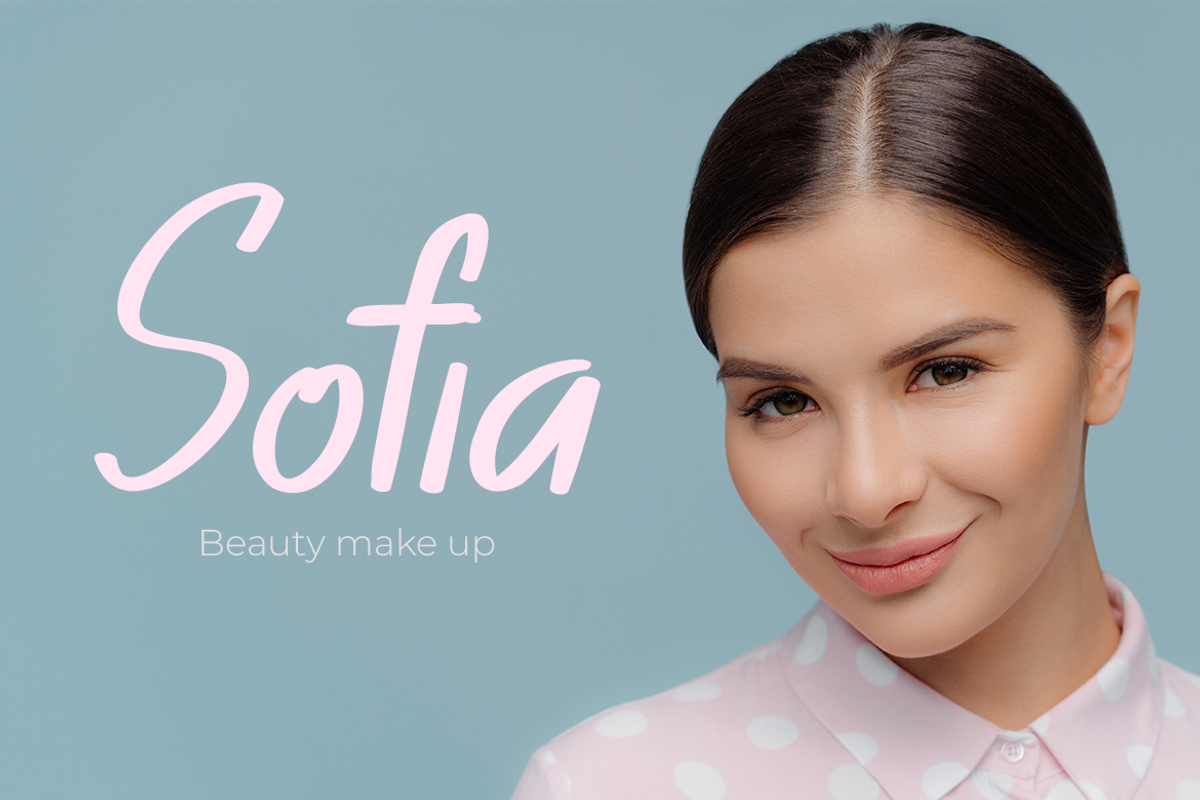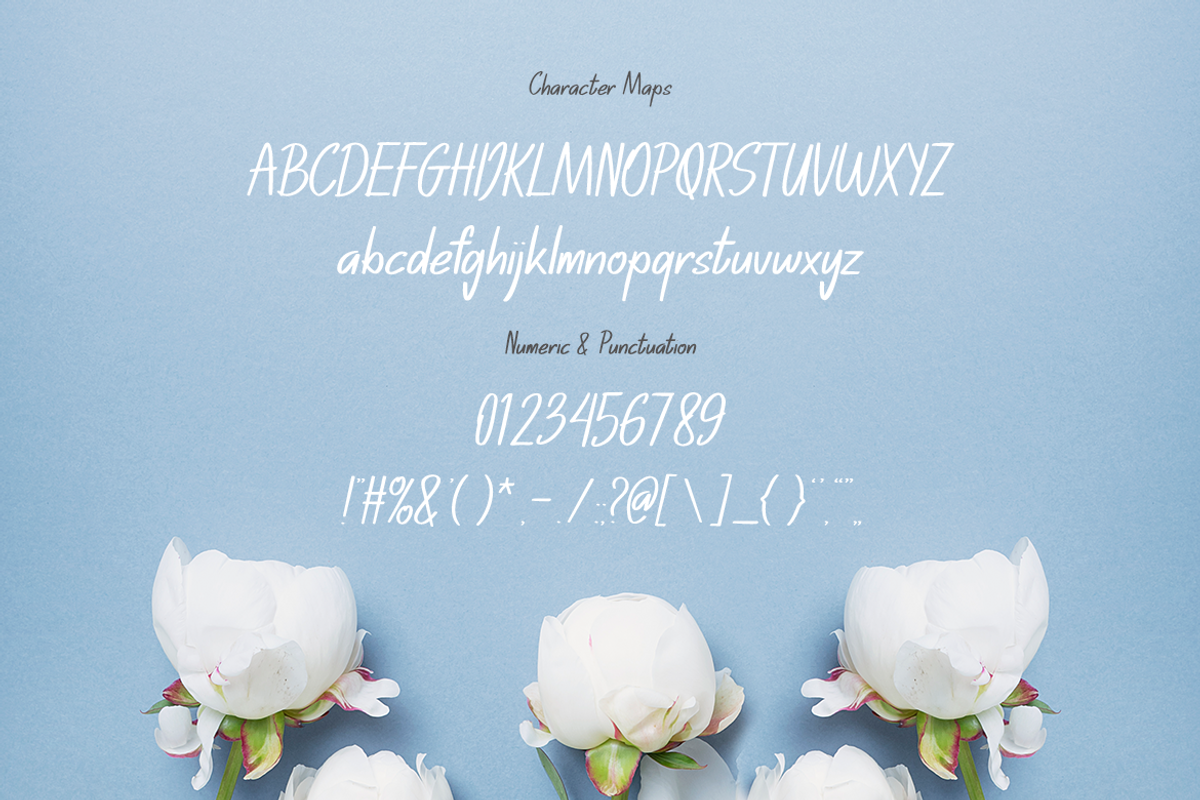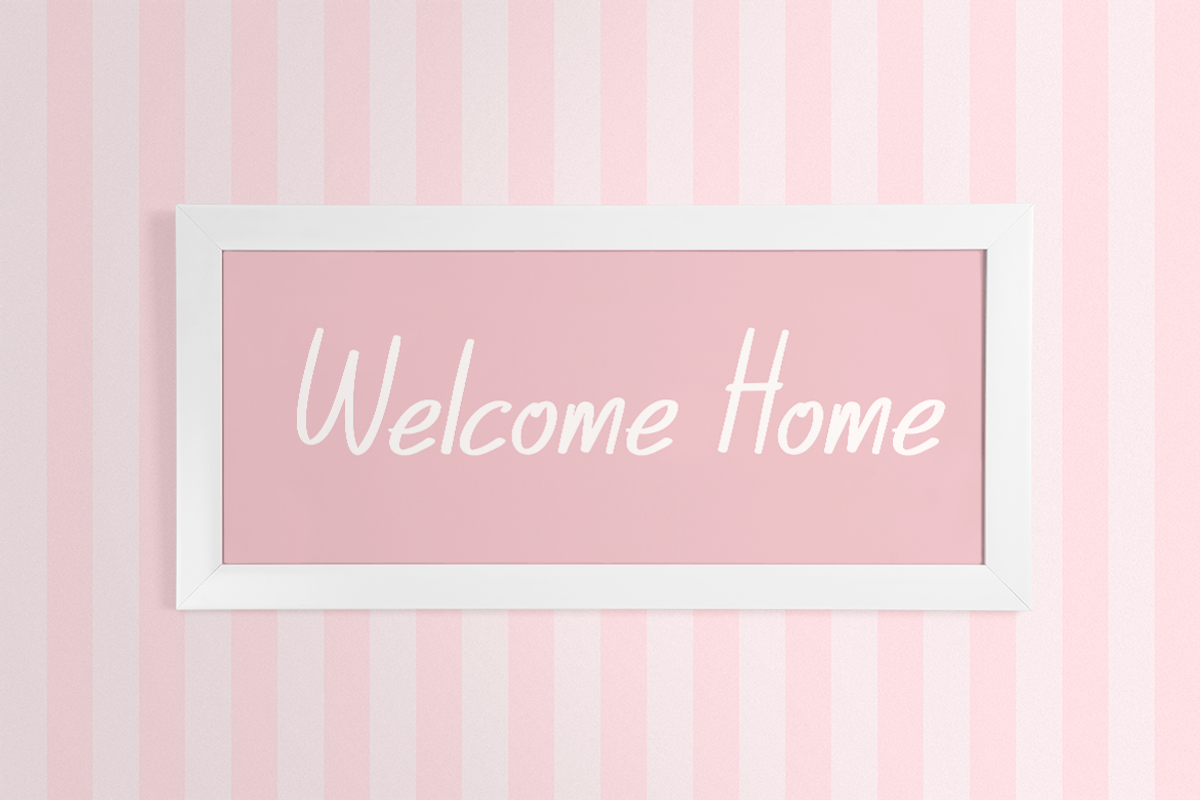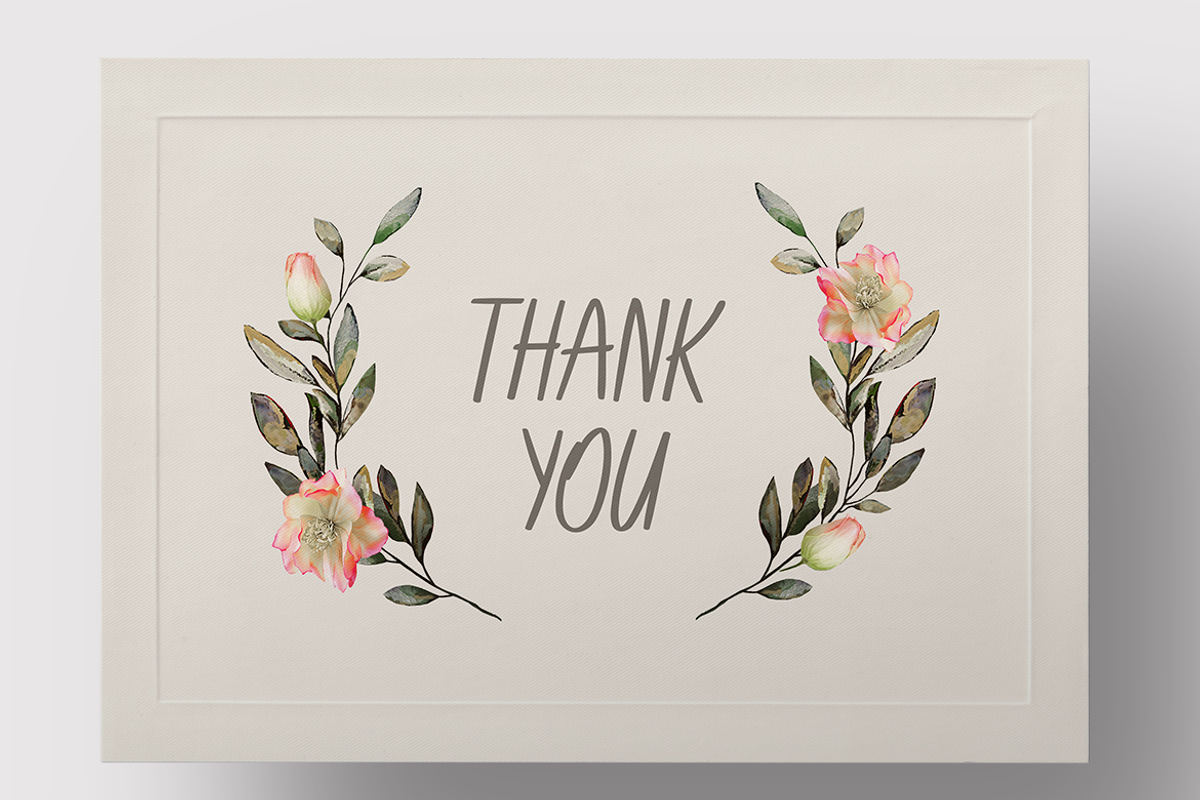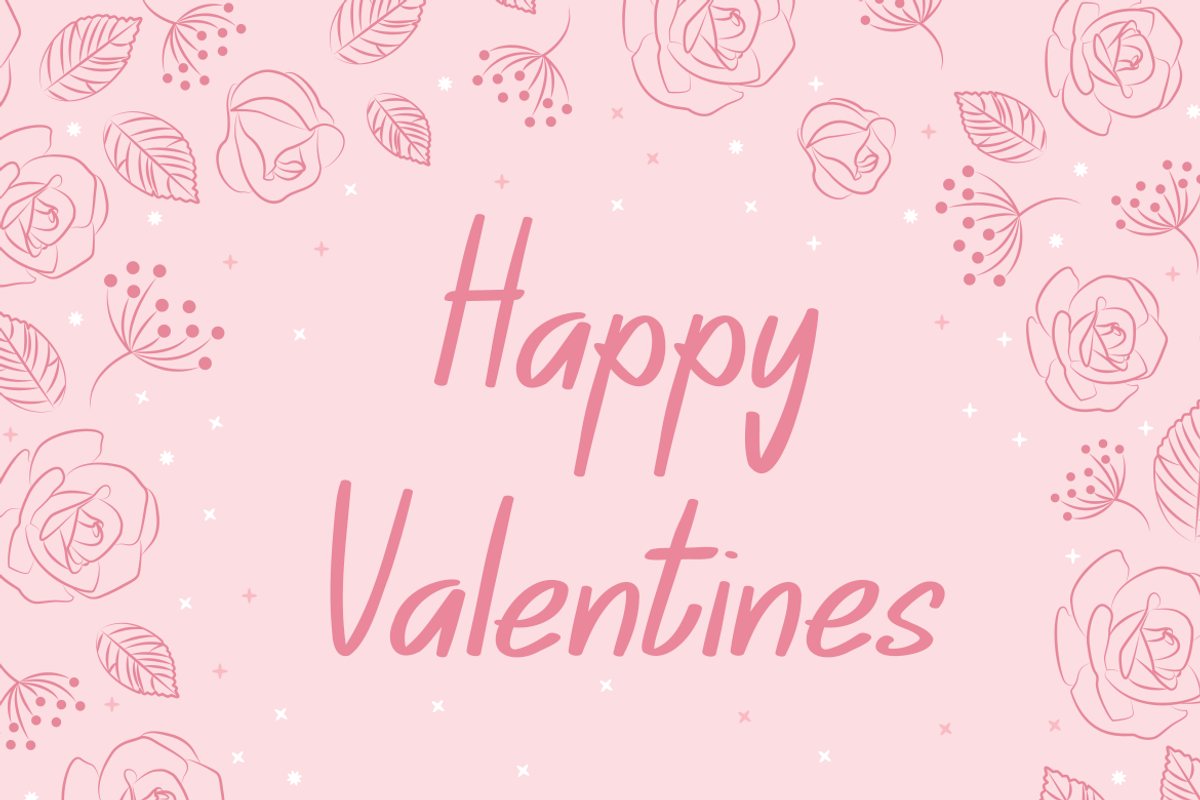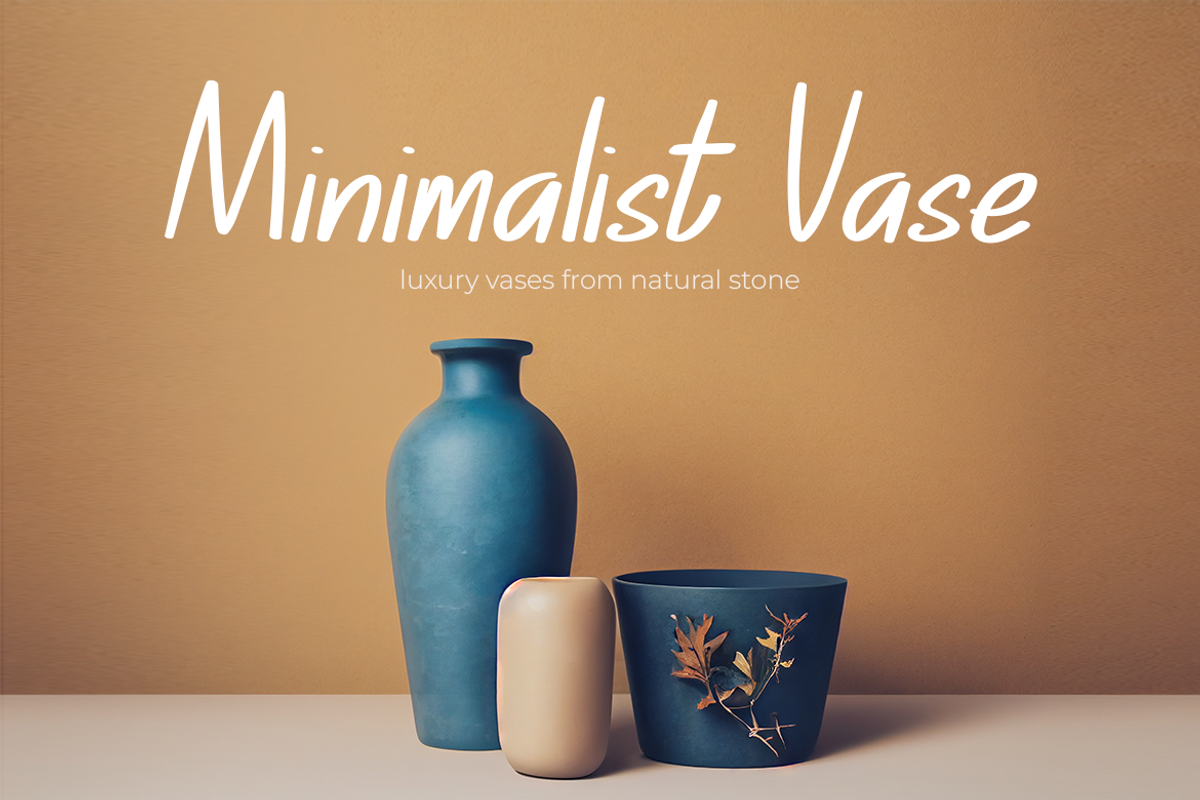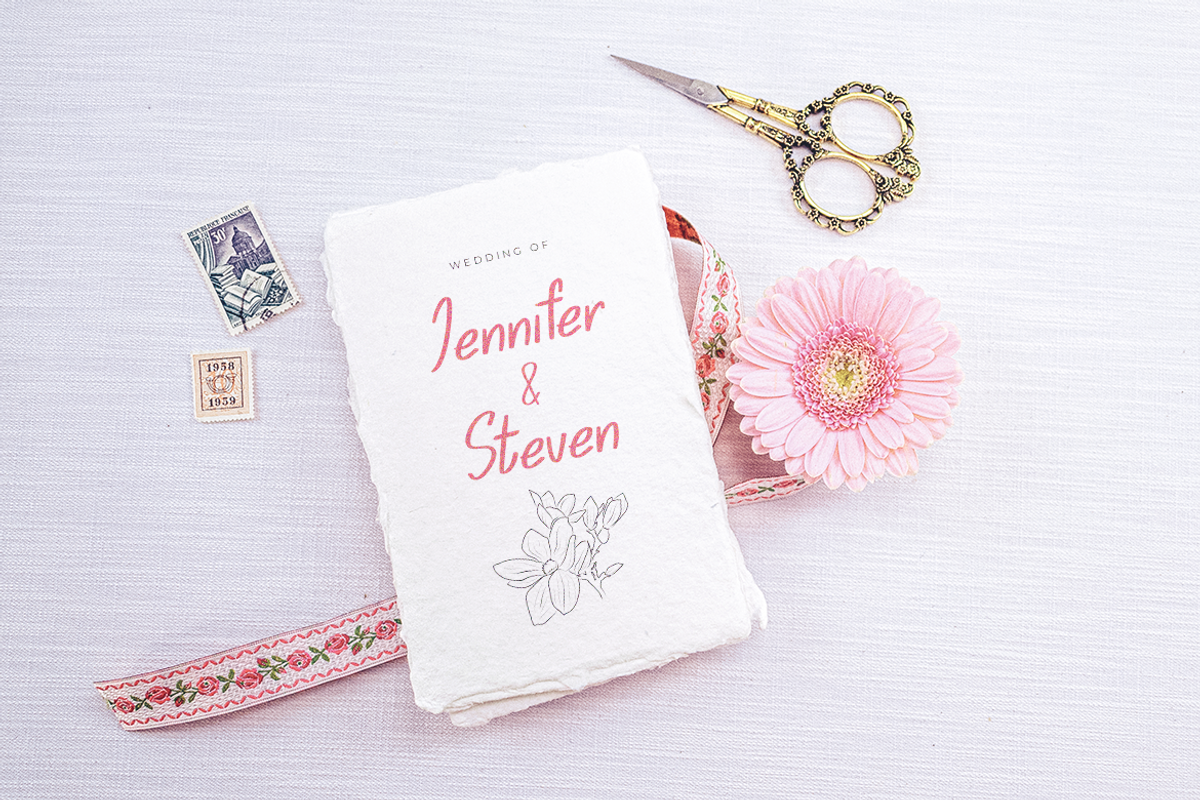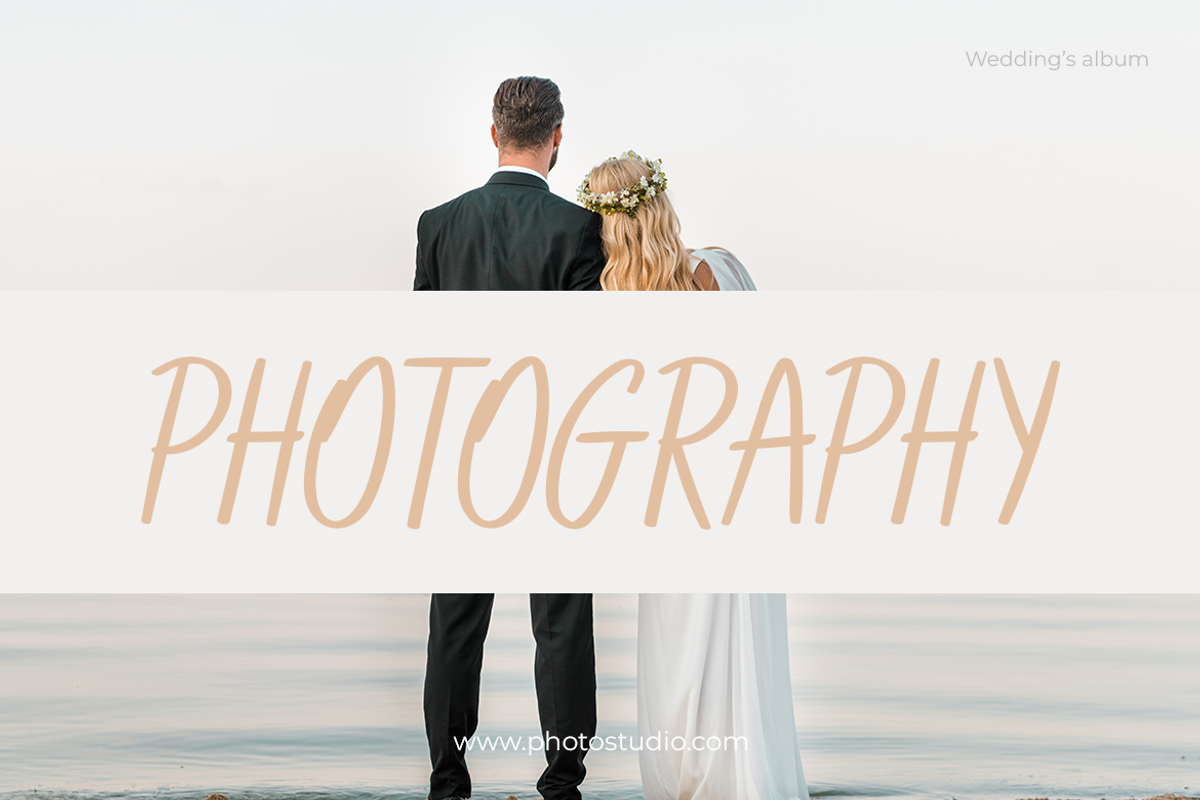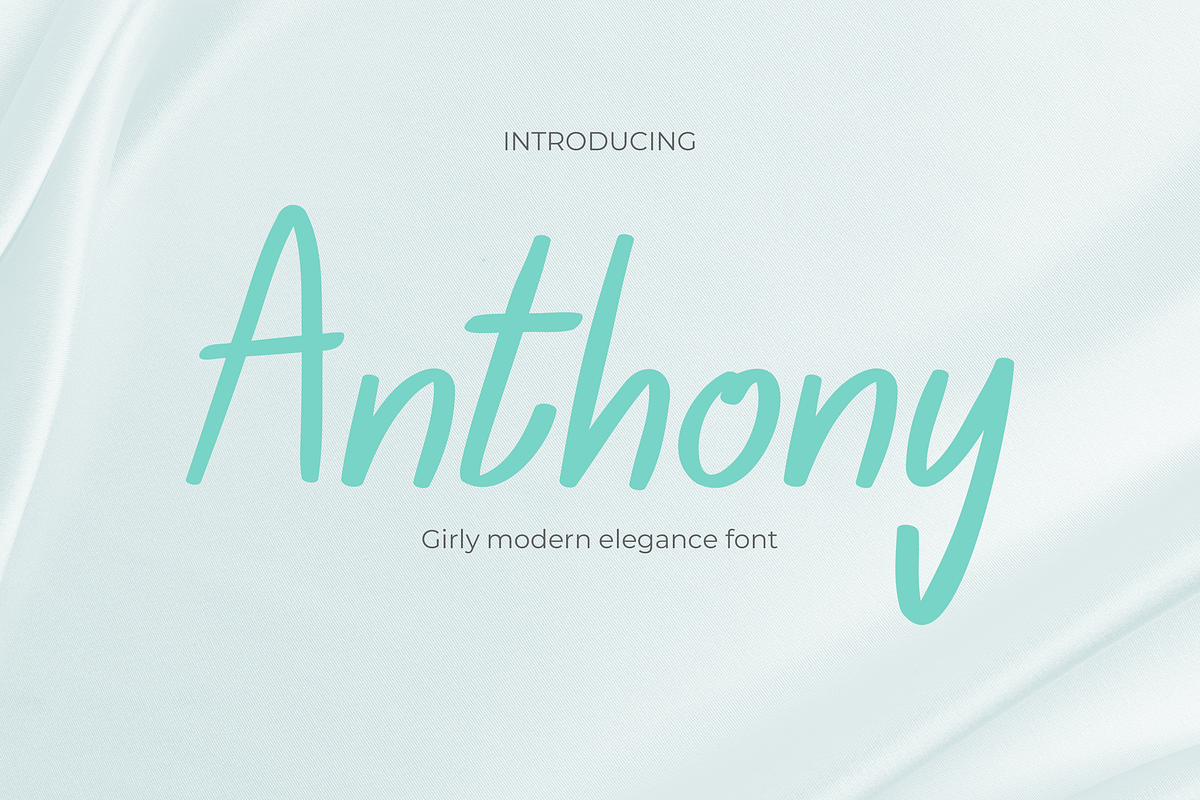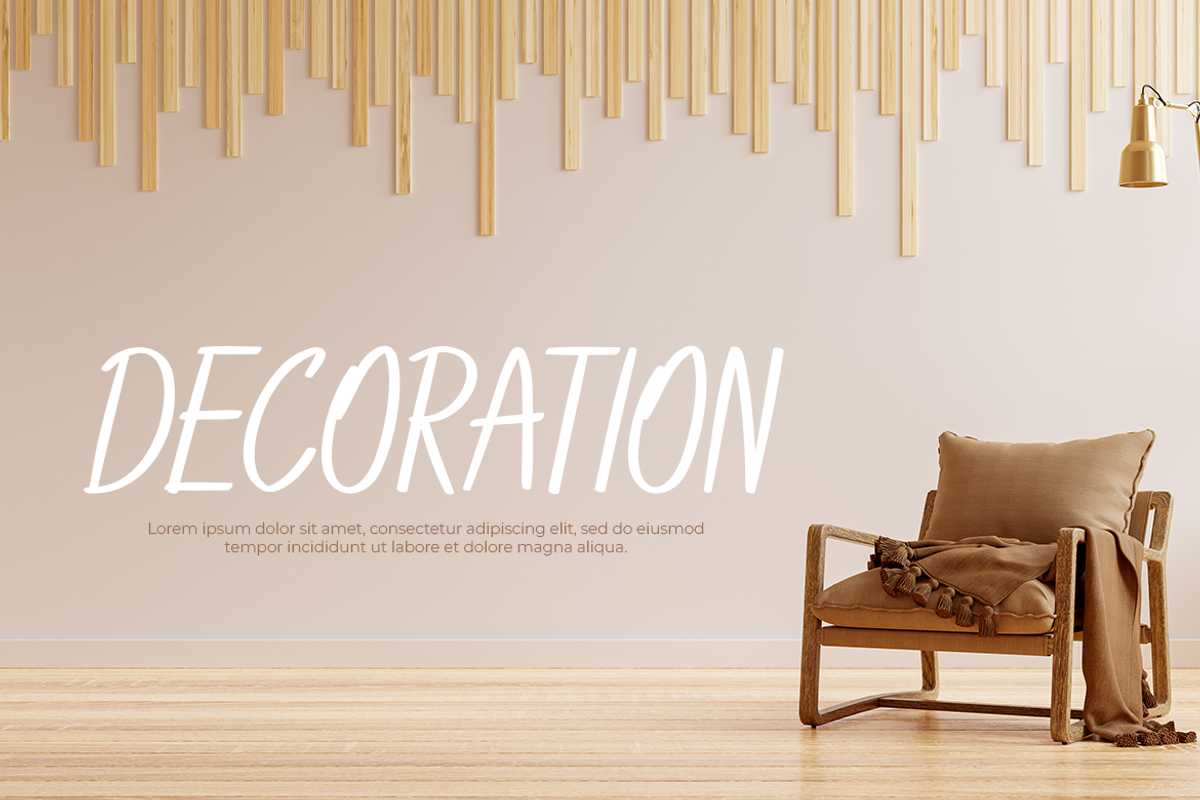
Anthony
Anthony Font - Timeless Elegance in Every Letter
Introducing Anthony Font, a stunning sans-serif typeface designed to infuse your projects with a touch of timeless elegance. Perfect for greeting cards, invitations, and more, this font exudes sophistication and class with its clean lines and refined aesthetic. Each letter is meticulously crafted to convey your message with grace and style, making Anthony Font the perfect choice for any occasion. Whether you're creating heartfelt sentiments or elegant invitations, Anthony Font elevates your designs to new heights of sophistication. Explore the beauty of Anthony Font today and make every word a work of art.